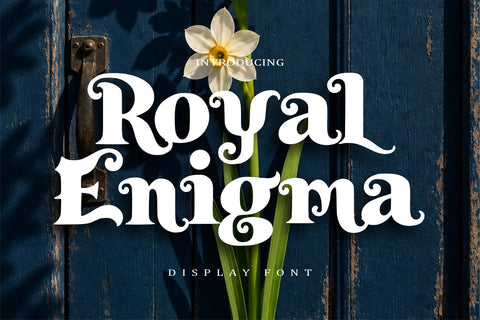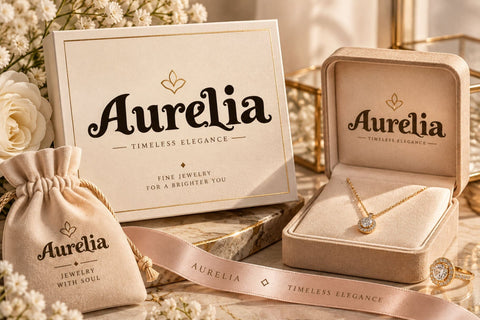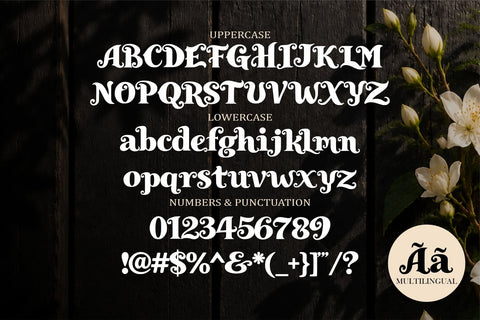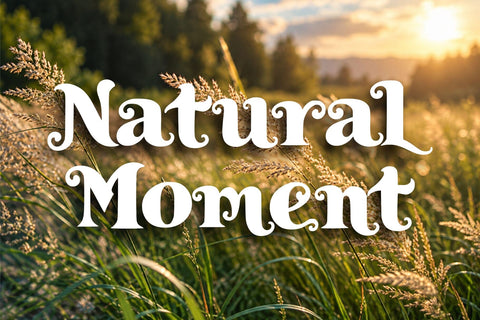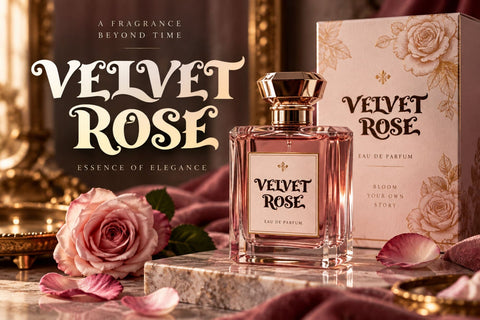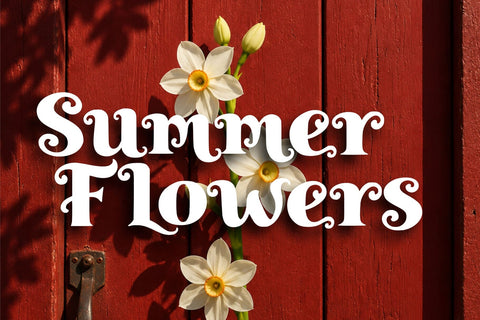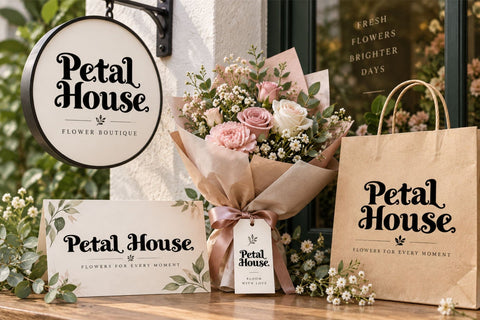
Royal Enigma – Classical Elegant Font
Royal Enigma is a classical elegant font designed to bring timeless sophistication, refined details, and luxurious character to your creative projects. Inspired by traditional typography with a graceful modern touch, this typeface creates a polished visual style for branding, invitations, wedding stationery, logos, packaging, editorial layouts, posters, and premium product designs.
The uppercase characters deliver a strong and sophisticated presence, while the lowercase characters add a smooth and elegant flow for balanced typography. Royal Enigma includes multilingual support, making it suitable for a wide range of international design projects. Number and punctuation characters are also included for complete and flexible compositions.